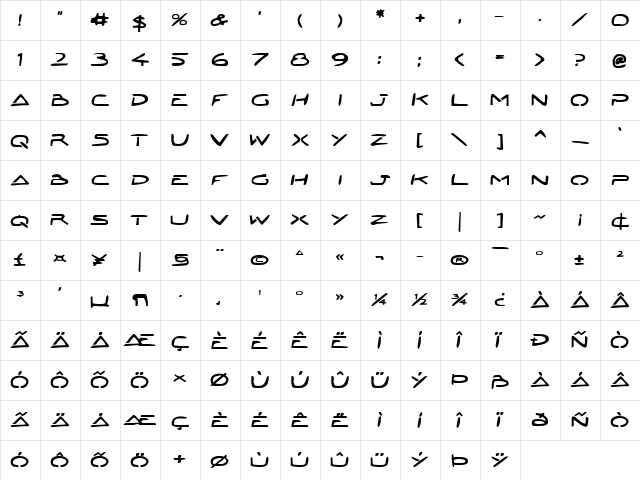
Jetta Tech Bold Bold Font Preview
Jetta Tech Bold Bold
Design Context for Jetta Tech Bold Typeface
Jetta Tech Bold channels digital-age aesthetics through its sharp, structured letterforms — ideal for brands that want to signal innovation. Its bold stroke weight gives it real presence on the page.
Pro Tip: Try Jetta Tech Bold with generous letter-spacing in UI labels and navigation — the geometric forms benefit from room to breathe.